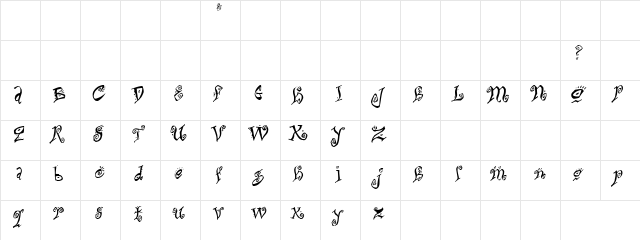
Graslien Regular
Design Context for Graslien Typeface
Graslien is a composed and adaptable typeface that performs quietly and consistently across a wide range of design contexts.